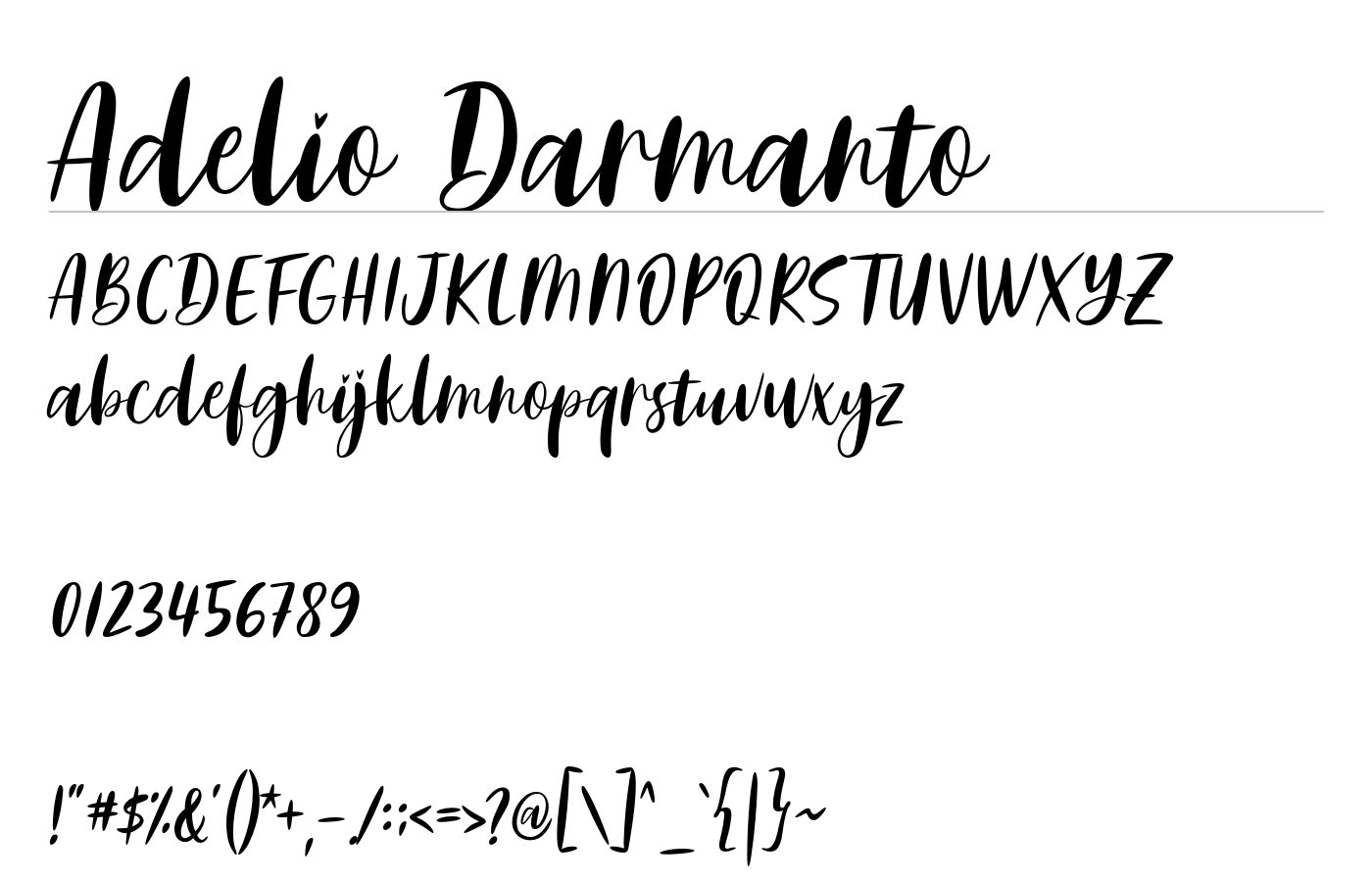
Adelio Darmanto is a lively and elegant script font with smooth, flowing strokes that mimic natural handwriting. Its medium weight and moderate contrast make it versatile for stylish yet readable text, perfect for adding a personal, creative touch to branding, invitations, and social media designs. This font pairs well with modern, playful, or feminine aesthetics, bringing warmth and charm to headlines and display uses.
Adelio Darmanto Font
About Adelio Darmanto Font
| Font family | Adelio Darmanto Font |
| Designer | Keitzho; Situjuh Nazara |